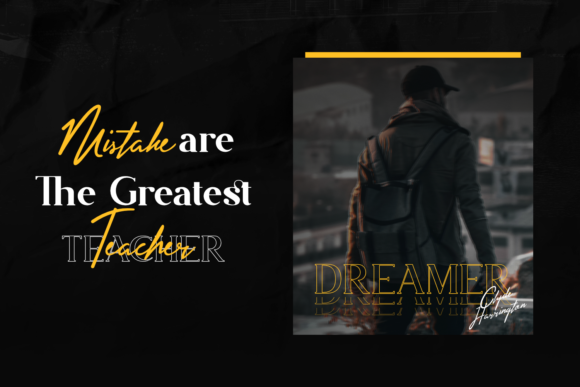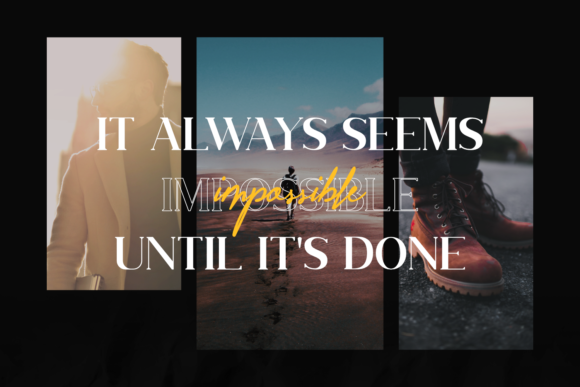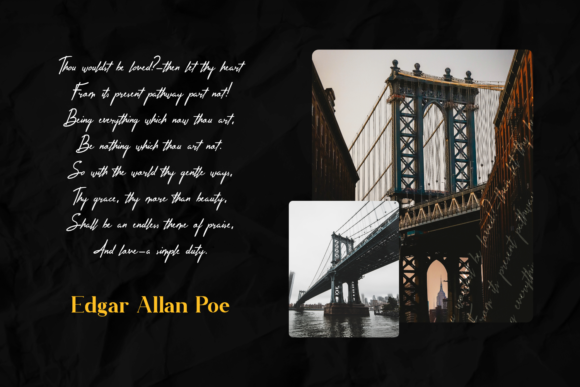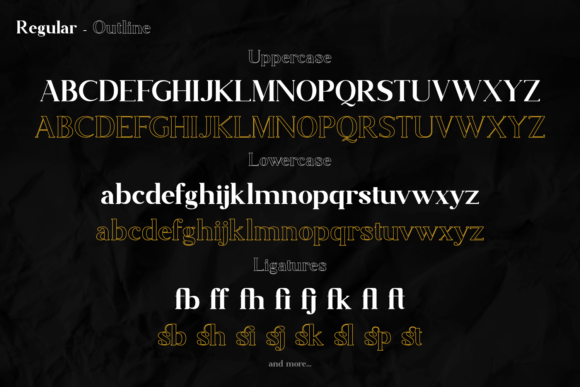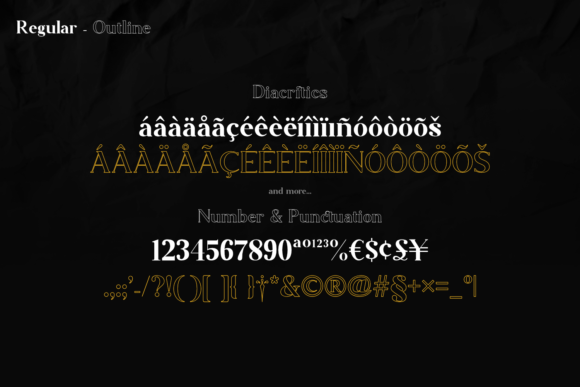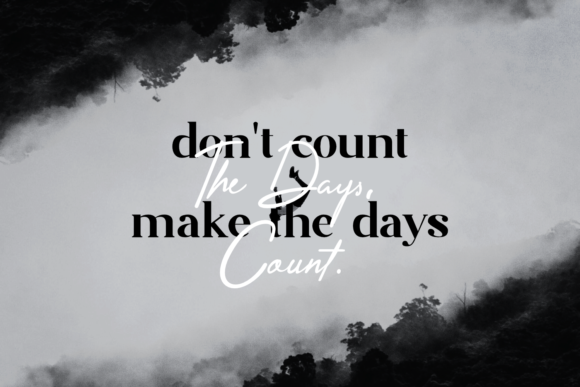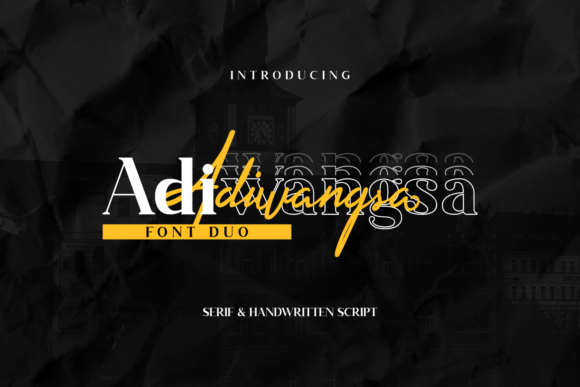
Introducing Adiwangsa Font: Elevate Your Designs with Style and Uniqueness
Are you tired of using the same old fonts in your designs? Do you want to add a creative touch to your posters, greeting cards, logos, and business cards? Look no further than Adiwangsa Font, a stylish and unique duo font that’s sure to make your designs stand out. In this article, we’ll explore the features and benefits of Adiwangsa Font, and show you how to make the most of this versatile and creative font.
What is Adiwangsa Font?
Adiwangsa Font is a modern and elegant duo font that consists of two complementary fonts. The font is designed to be highly versatile and can be used for a wide range of design projects, from posters and greeting cards to logos and business cards. With its unique and stylish design, Adiwangsa Font is perfect for designers and crafters who want to add a creative touch to their work.
Key Features of Adiwangsa Font
• Unique and Stylish Design: Adiwangsa Font has a distinctive and stylish design that sets it apart from other fonts.
• Duo Font: The font comes in two complementary styles, allowing you to mix and match to create stunning designs.
• Highly Versatile: Adiwangsa Font can be used for a wide range of design projects, from posters and greeting cards to logos and business cards.
• Elegant and Modern: The font has a modern and elegant design that’s perfect for designs that require a touch of sophistication.
• Posters: Use Adiwangsa Font to create eye-catching posters that grab attention.
• Greeting Cards: Add a personal touch to your greeting cards with Adiwangsa Font.
• Logos: Use Adiwangsa Font to create unique and memorable logos for your business or brand.
• Business Cards: Stand out from the crowd with Adiwangsa Font on your business cards.
• Thank You Cards: Show your appreciation with stylish thank you cards featuring Adiwangsa Font.
• Quotes: Use Adiwangsa Font to create inspiring and motivational quotes.
Benefits of Using Adiwangsa Font
There are many benefits to using Adiwangsa Font in your designs. Here are just a few:
• Adds a Creative Touch: Adiwangsa Font adds a unique and creative touch to your designs, setting them apart from the rest.
• Enhances Readability: The font is highly legible, making it easy for your audience to read and understand your message.
• Increases Engagement: Adiwangsa Font can help increase engagement with your audience, as its unique design is sure to grab attention.
• Versatile: The font can be used for a wide range of design projects, making it a valuable addition to your font library.
Tips and Tricks for Getting the Most out of Adiwangsa Font
Here are some tips and tricks for getting the most out of Adiwangsa Font:
• Experiment with Different Styles: Try pairing Adiwangsa Font with other fonts to create unique and interesting combinations.
• Use it for Headings and Titles: Adiwangsa Font is perfect for headings and titles, where its unique design can really shine.
• Don’t be Afraid to Get Creative: Adiwangsa Font is a versatile font that can be used in many different ways, so don’t be afraid to get creative and try new things.
In conclusion, Adiwangsa Font is a stylish and unique duo font that’s perfect for designers and crafters who want to add a creative touch to their work. With its highly versatile design and elegant style, Adiwangsa Font is sure to make your designs stand out. Whether you’re creating posters, greeting cards, logos, or business cards, Adiwangsa Font is a great choice. So why wait? Download Adiwangsa Font today and start creating stunning designs that grab attention.